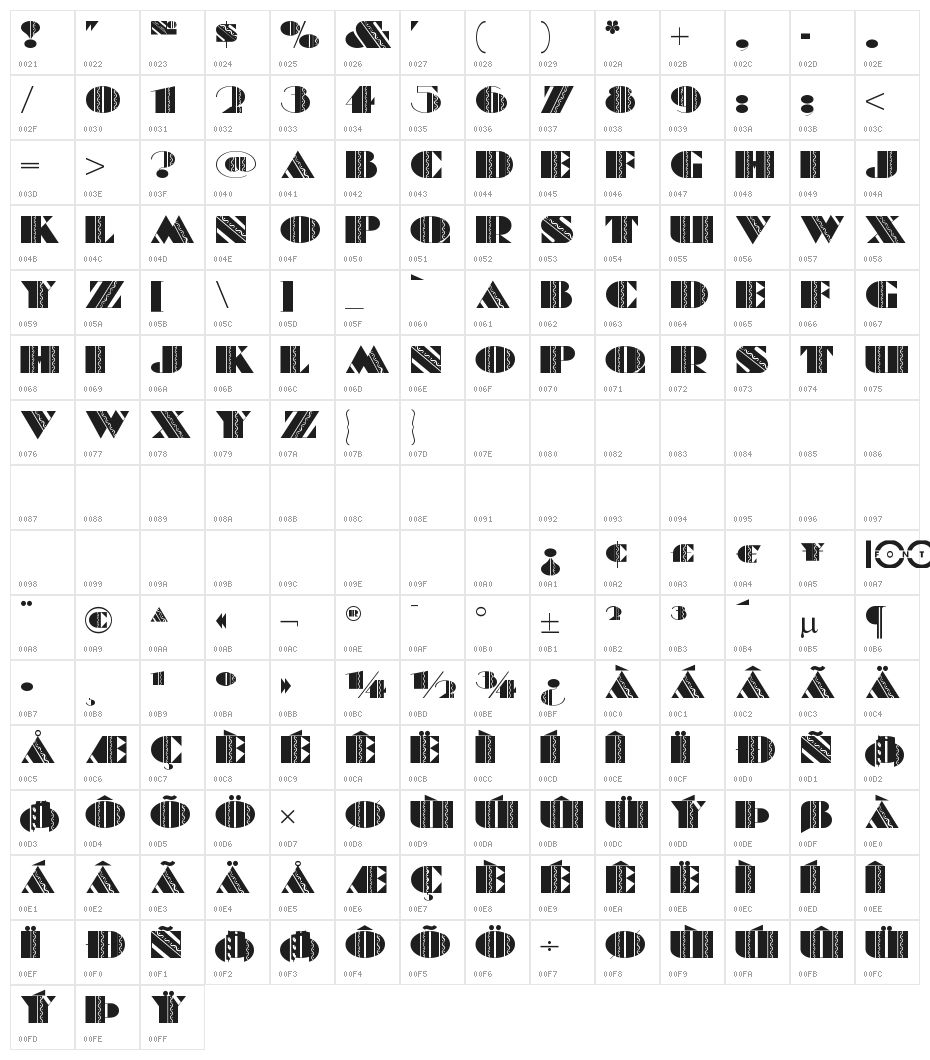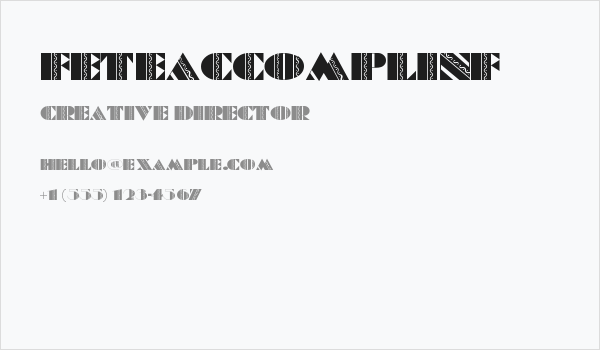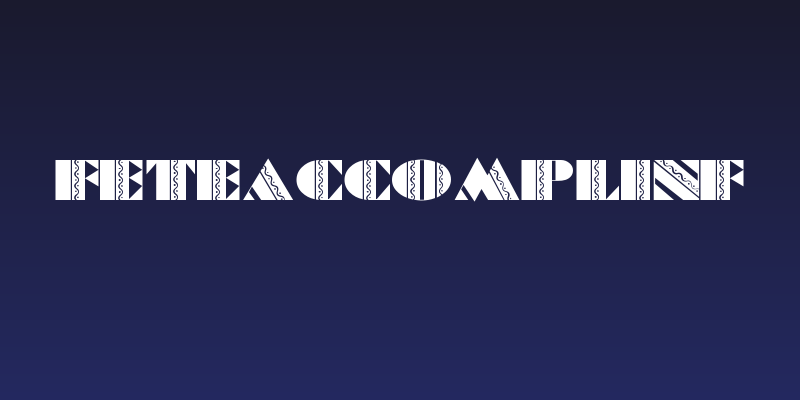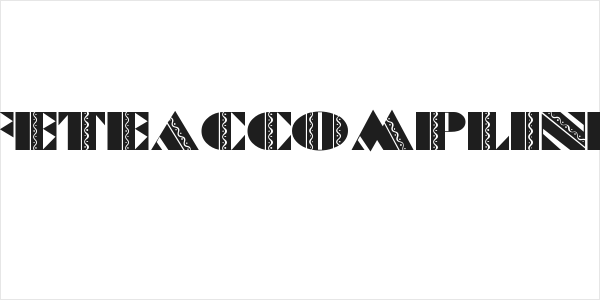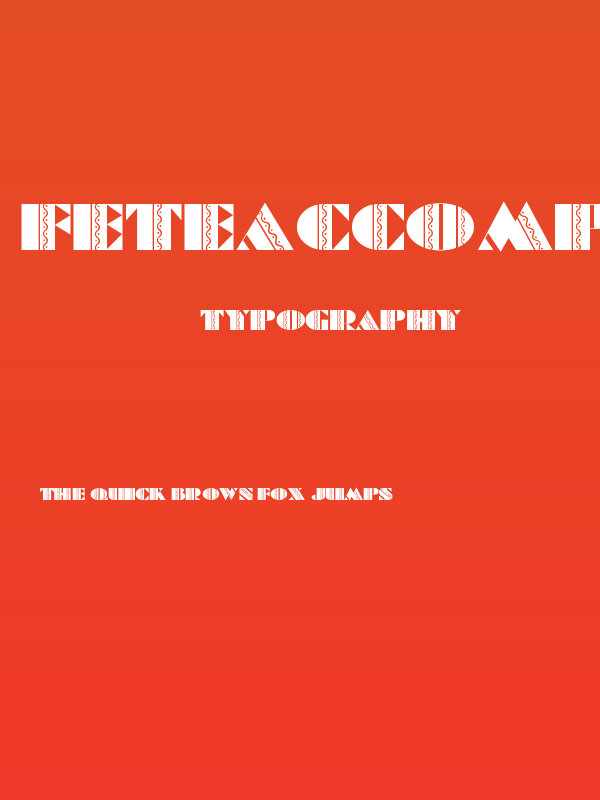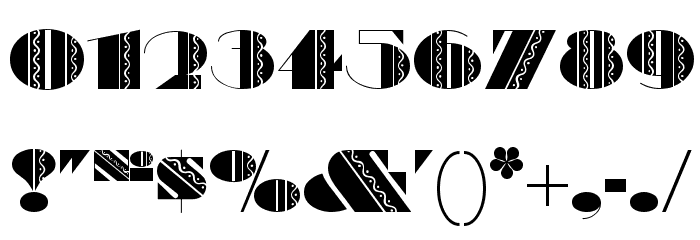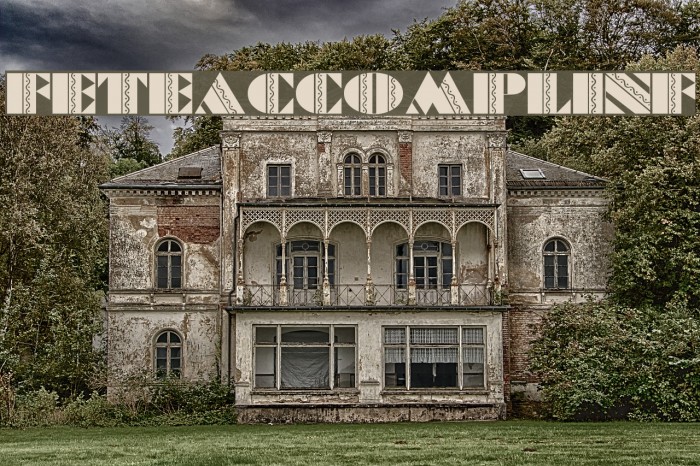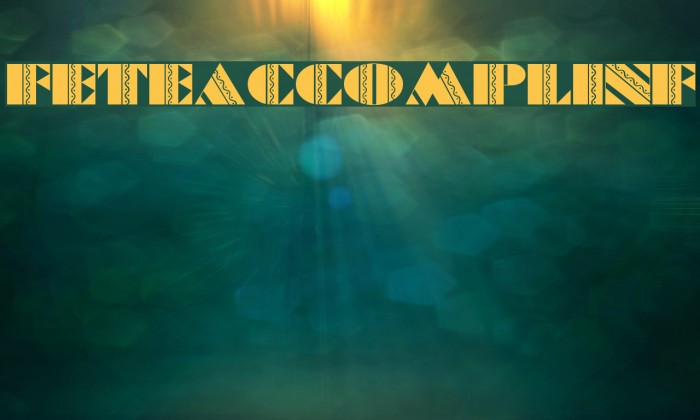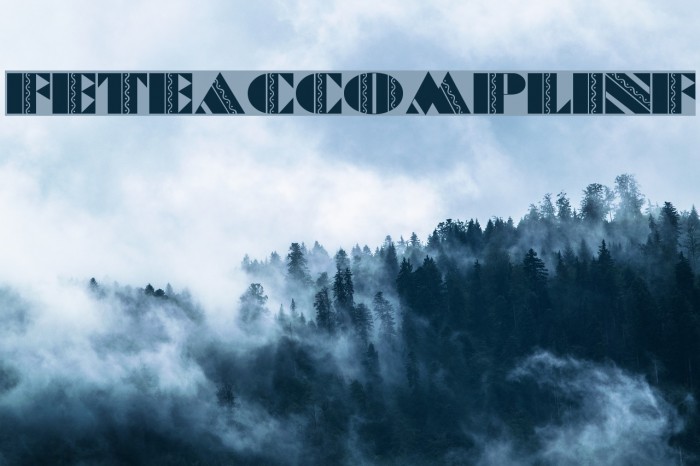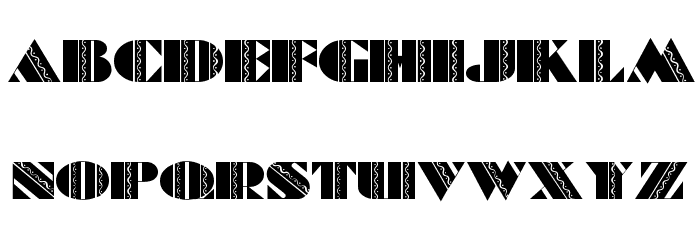
FeteAccompliNF Font
FeteAccompliNF Description
This font features a bold and decorative style with intricate patterns embedded within each character. The uppercase letters are particularly striking, with a strong geometric influence and high contrast between thick and thin lines. The lowercase letters maintain the decorative theme, offering a cohesive look throughout the typeface. Numbers and special characters are equally ornate, making this font ideal for eye-catching designs. The overall aesthetic is both modern and artistic, suitable for projects that require a unique and bold statement.
FETEACCOMPLINF UPPERCASE
FETEACCOMPLINF LOWERCASE
FETEACCOMPLINF OTHER CHARS
| Overall Style | Modern, Artistic |
| Proposed Projects | Ideal for poster designs, branding, album covers, and any project needing a bold, artistic touch. |